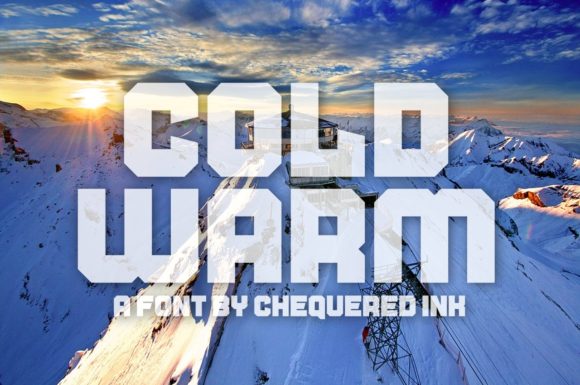
Cold Warm Font: A Big, Bold Techno Font by Chequered Ink
Are you tired of using the same old fonts in your designs? Look no further than the Cold Warm font, a big, bold techno font created by Chequered Ink. In this article, we’ll take a closer look at the Cold Warm font, its features, and how you can use it to take your designs to the next level.
What is Cold Warm Font?
Cold Warm font is a modern, techno-inspired font designed by Chequered Ink. It’s a sans-serif font that features bold, geometric lines and a futuristic aesthetic. The font is perfect for designers who want to add a touch of edginess and sophistication to their work.
Key Features of Cold Warm Font
So, what makes Cold Warm font so special? Here are some of its key features:
• Big and Bold: Cold Warm font is a statement font that’s designed to grab attention. Its bold lines and geometric shapes make it perfect for headlines, titles, and other display text.
• Techno-Inspired: The font’s techno-inspired design gives it a futuristic feel that’s perfect for designs that require a cutting-edge look.
• Geometric Shapes: The font features geometric shapes and lines that give it a modern and sleek look.
• Highly Versatile: Cold Warm font can be used for a wide range of design projects, from posters and flyers to logos and branding materials.
Who is Chequered Ink?
How to Use Cold Warm Font in Your Designs
So, how can you use Cold Warm font in your designs? Here are some ideas to get you started:
• Headlines and Titles: Use Cold Warm font to create bold and eye-catching headlines and titles that grab attention.
• Posters and Flyers: The font is perfect for posters and flyers that require a bold and attention-grabbing look.
• Logos and Branding: Use Cold Warm font to create modern and edgy logos and branding materials that stand out from the crowd.
• Web Design: The font can also be used in web design to create bold and eye-catching headings and titles.
Tips for Pairing Cold Warm Font with Other Fonts
When using Cold Warm font in your designs, it’s often a good idea to pair it with other fonts to create visual interest and contrast. Here are some tips for pairing Cold Warm font with other fonts:
• Pair with a Serif Font: Pairing Cold Warm font with a serif font can create a nice contrast between the bold, geometric lines of the techno font and the more traditional look of the serif font.
• Use a Script Font: Pairing Cold Warm font with a script font can add a touch of elegance and sophistication to your design.
• Experiment with Different Font Sizes: Experimenting with different font sizes can help create visual interest and hierarchy in your design.
In conclusion, Cold Warm font is a big, bold techno font that’s perfect for designers who want to add a touch of edginess and sophistication to their work. With its geometric shapes, bold lines, and futuristic aesthetic, it’s a font that’s sure to grab attention. Whether you’re designing posters, logos, or branding materials, Cold Warm font is a versatile and highly usable font that’s sure to meet your needs.